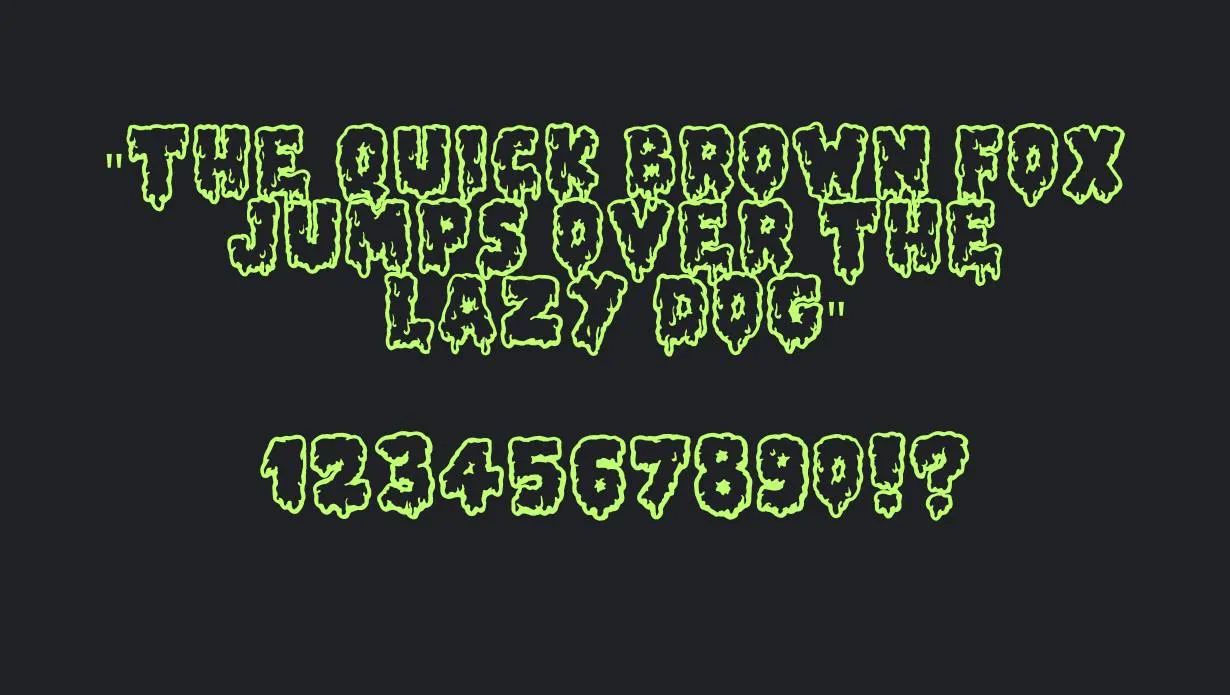
Lethal Slime Font is recognized for its whimsical and unconventional design, commonly selected for creative branding, advertising, and projects where designers aim to make a distinctive and lasting visual impression.
Lethal Slime Font Family
| Name | Lethal Slime Font |
| Designer | Imagex |
The font’s bold and irregular letterforms add a sense of originality and individuality to your designs.